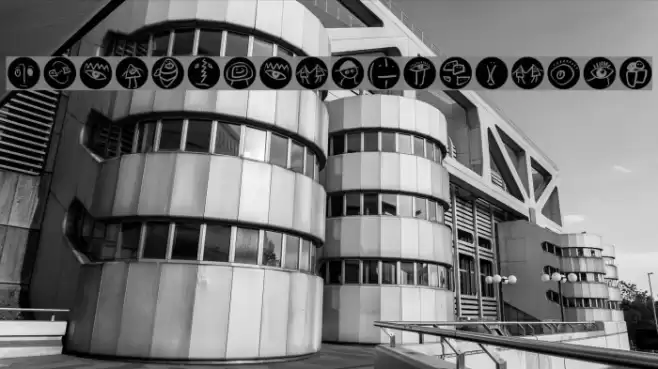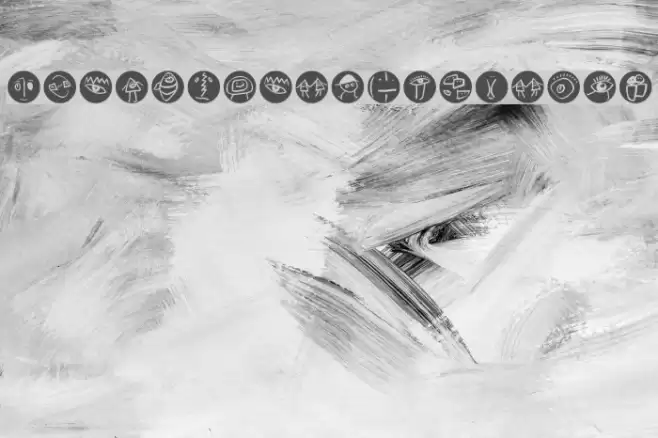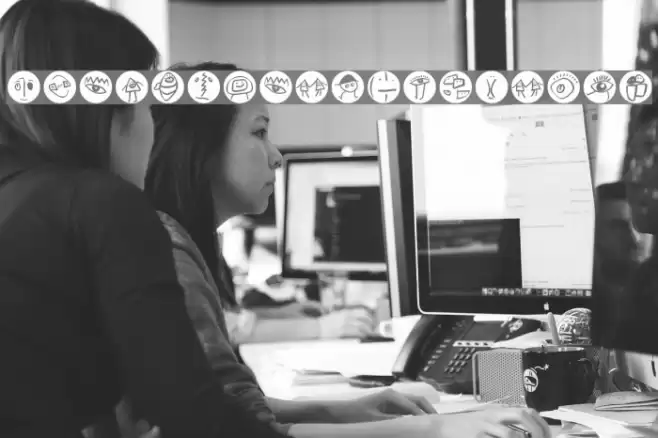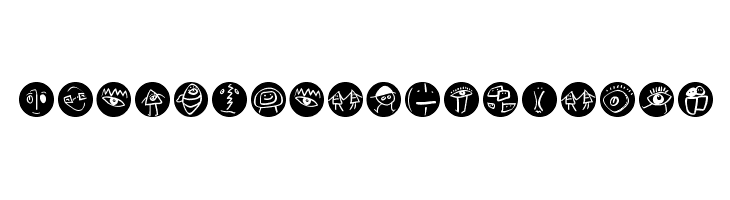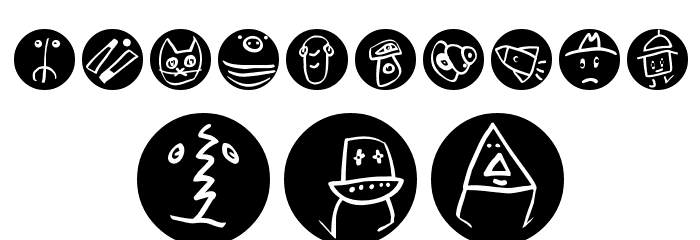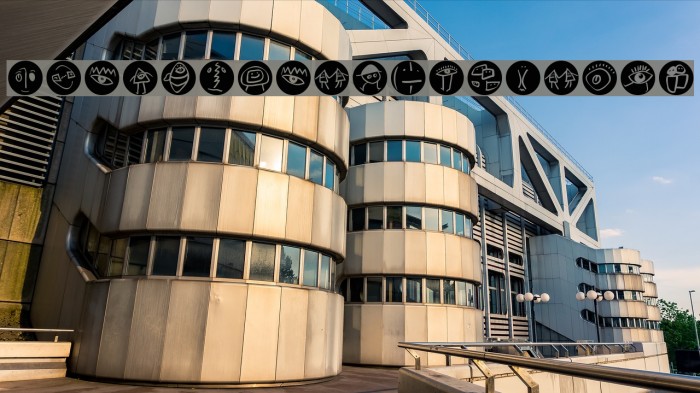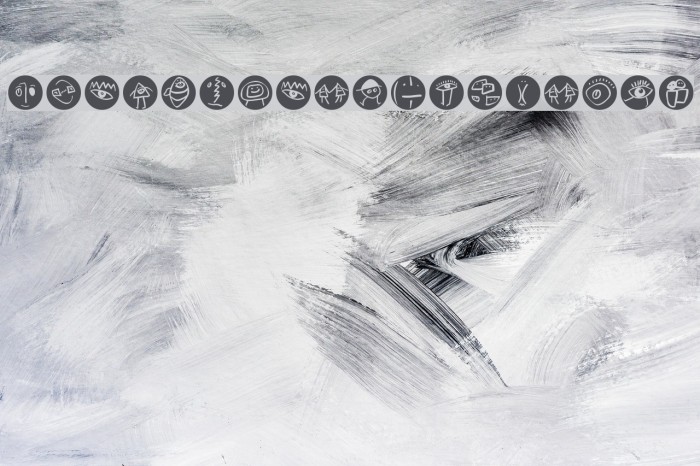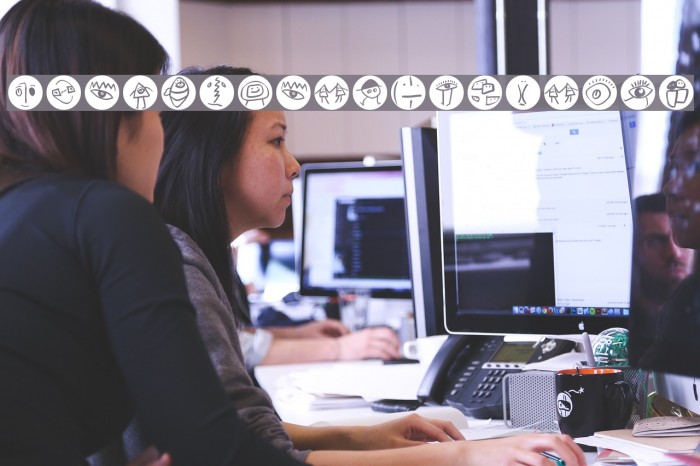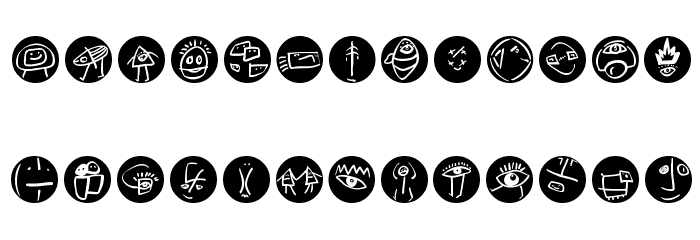
SktchBatsInversTwo Font
SktchBatsInversTwo Description
A playful, hand-drawn dingbat set featuring whimsical faces, abstract shapes, and quirky icons, all rendered in white line art on solid black circular backgrounds. The style mimics quick sketchbook doodles, giving each glyph a unique and spontaneous character.
Hand-drawn, doodle-style icon set with playful faces and shapes from Uncategorized fonts.
- Proposed Projects: Children's books, creative branding, party invitations, playful posters, sticker designs, social media graphics.
- Overall Style: Playful, Whimsical, Hand-drawn
- Use Case: Icons, Decorative elements, Themed graphics